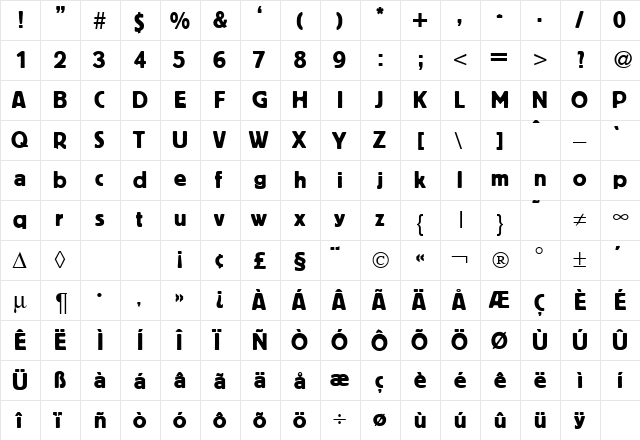
Blofeld DB Regular
Design Context for Blofeld DB Typeface
Blofeld DB is a composed and adaptable typeface that performs quietly and consistently across a wide range of design contexts.